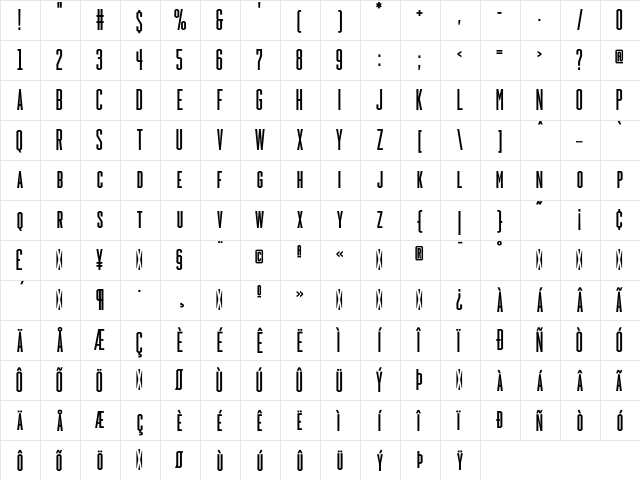
HeraldGothic BoldSmallCaps
Design Context for HeraldGothic Typeface
HeraldGothic takes a clean, functional approach — its unadorned letterforms prioritise legibility and work reliably across screen and print environments. Its bold stroke weight gives it real presence on the page.
Well-suited to navigation labels, product packaging, and anywhere legibility at scale is essential.
Font Pairing: Use HeraldGothic for headlines alongside a lighter-weight sans or serif for body copy to establish clear visual hierarchy.
Pro Tip: Use HeraldGothic for UI labels, navigation, and short-form body copy where clean legibility is the priority.